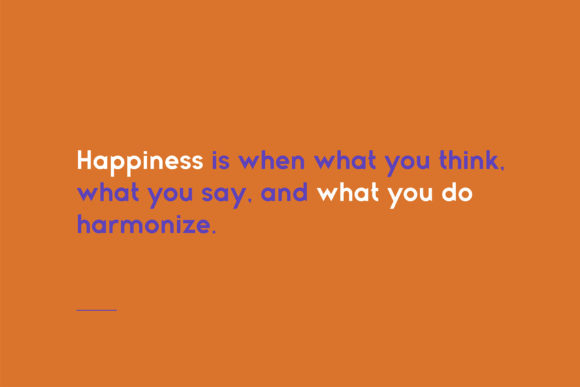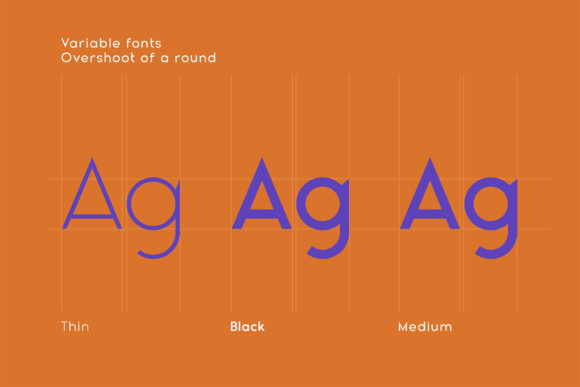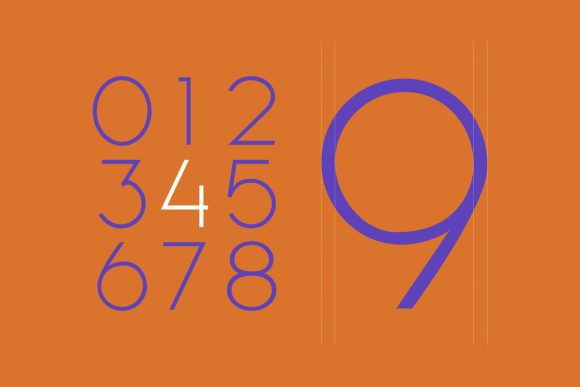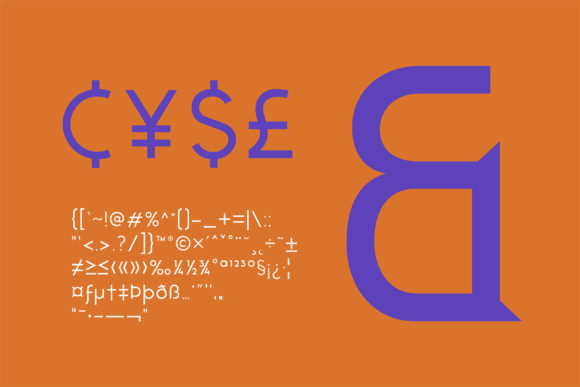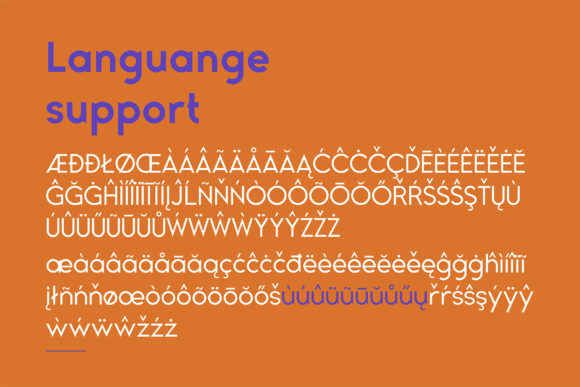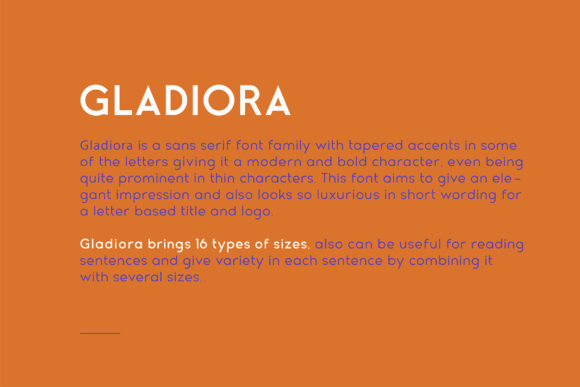
Introducing Gladiora Font: The Ultimate Modern Sans Serif for Creative Projects
In the world of typography, fonts play a crucial role in shaping the identity of a brand or creative project. A well-designed font can elevate the visual appeal of a logo, t-shirt, or any other creative product, making it stand out from the crowd. If you’re a designer or crafter looking for a modern and stylish sans serif font to take your projects to the next level, look no further than Gladiora Font.
What is Gladiora Font?
Gladiora Font is a contemporary sans serif font designed to meet the demands of modern branding and creative projects. Its clean lines, elegant curves, and versatile style make it an ideal choice for designers and crafters seeking a font that can adapt to various applications. Whether you’re working on a logo, t-shirt printing, or creating unique products, Gladiora Font is the perfect companion to help you achieve your creative vision.
Key Features of Gladiora Font
- Modern and Stylish Design: Gladiora Font boasts a sleek and sophisticated design that instantly adds a touch of elegance to any project.
- Sans Serif Style: The font’s sans serif style ensures clarity and readability, making it suitable for a wide range of applications, from digital media to print materials.
- Versatile and Adaptable: Gladiora Font can be used for various creative projects, including logos, t-shirt printing, brochures, posters, and more.
- Easy to Read: The font’s clear and legible design ensures that your message is conveyed effectively, making it perfect for headlines, titles, and body text.
Use Cases for Gladiora Font
Gladiora Font is an incredibly versatile font that can be used in a variety of creative projects. Here are some examples of how you can utilize this amazing font:
- Logo Design: Create a stunning logo for your brand or business with Gladiora Font. Its modern design and elegant style make it perfect for companies, startups, and entrepreneurs.
- T-Shirt Printing: Add a touch of style to your t-shirt designs with Gladiora Font. Its clear and legible design ensures that your message or logo stands out on any type of apparel.
- Creative Products: Use Gladiora Font to create unique and eye-catching designs for mugs, phone cases, stickers, and other creative products.
- Branding and Advertising: Apply Gladiora Font to your branding and advertising materials, such as brochures, posters, and flyers, to create a cohesive and professional look.
Why Choose Gladiora Font?
With so many fonts available, why should you choose Gladiora Font for your creative projects? Here are some compelling reasons:
- Unique and Modern Design: Gladiora Font offers a fresh and contemporary design that sets it apart from traditional fonts.
- High-Quality and Legible: The font is designed to ensure high-quality and legibility, making it perfect for both digital and print materials.
- Support for Multiple Languages: The font supports multiple languages, making it a great choice for global brands and businesses.
In conclusion, Gladiora Font is an exceptional modern sans serif font that is perfect for designers and crafters seeking a stylish and versatile font for their creative projects. Its clean design, elegant curves, and adaptability make it an ideal choice for a wide range of applications, from logos and t-shirt printing to creative products and branding materials. With Gladiora Font, you can elevate your designs and take your creative projects to new heights.